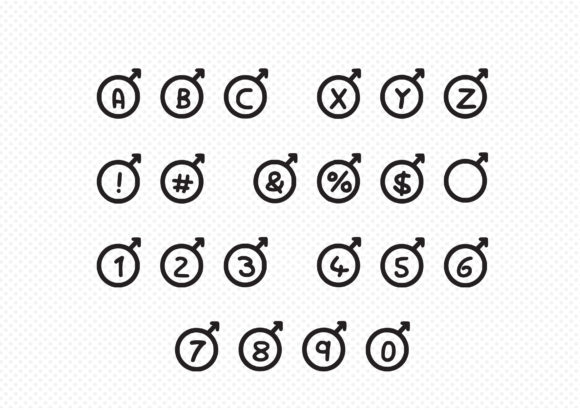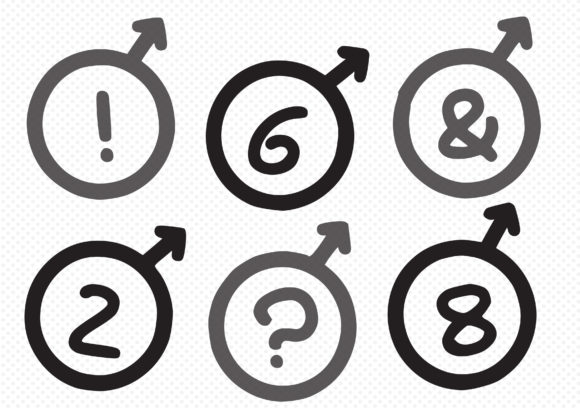
Introduction to Play Male Symbol Font
Play Male symbol is the right decorative font for masculine projects or anything related.
Use it for projects that need unique and creative typography .